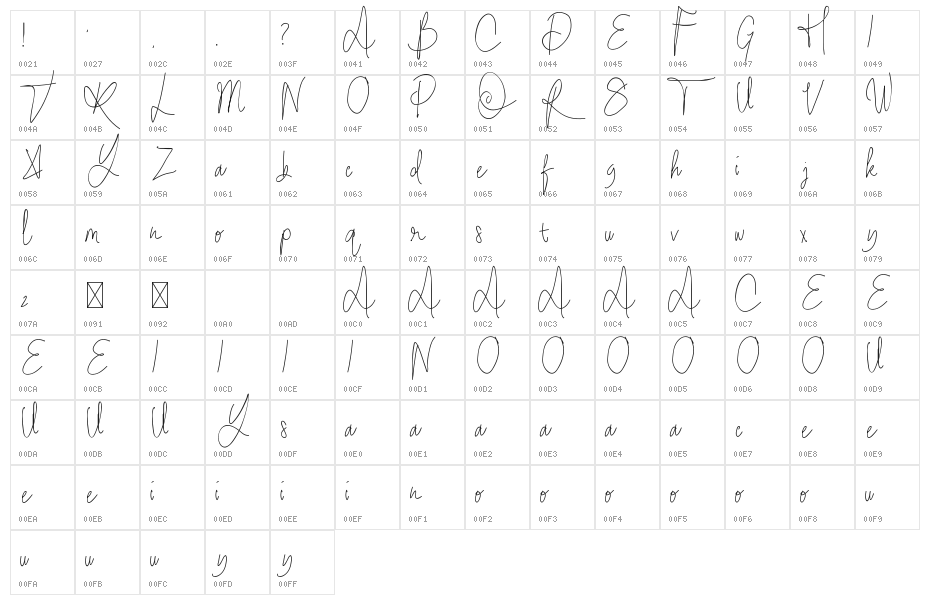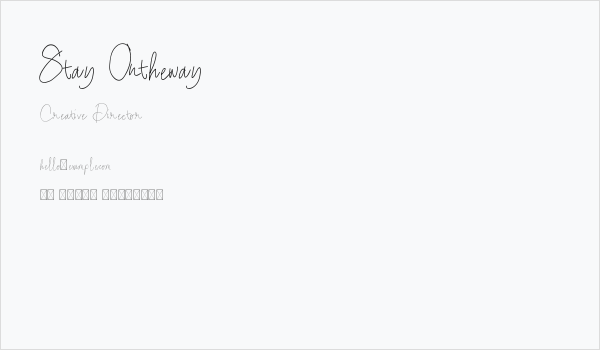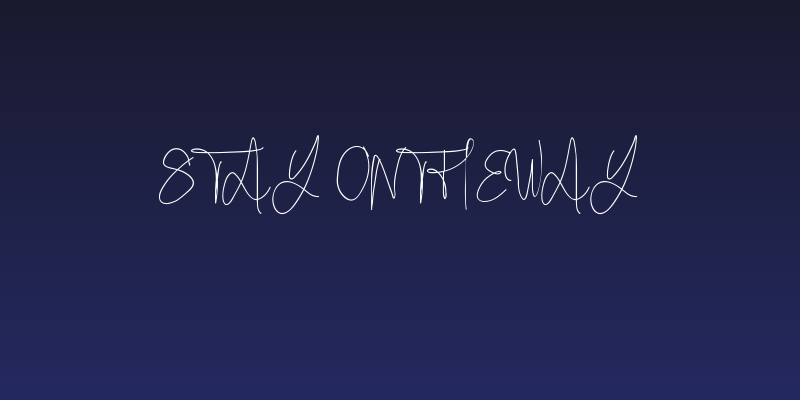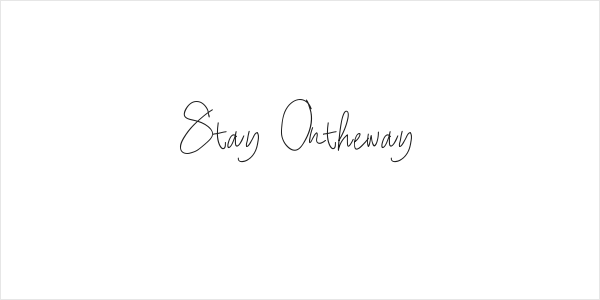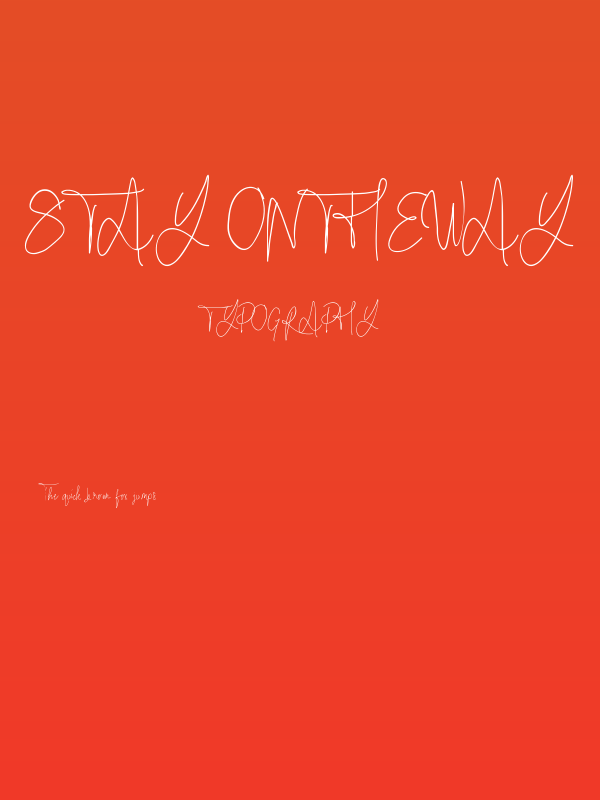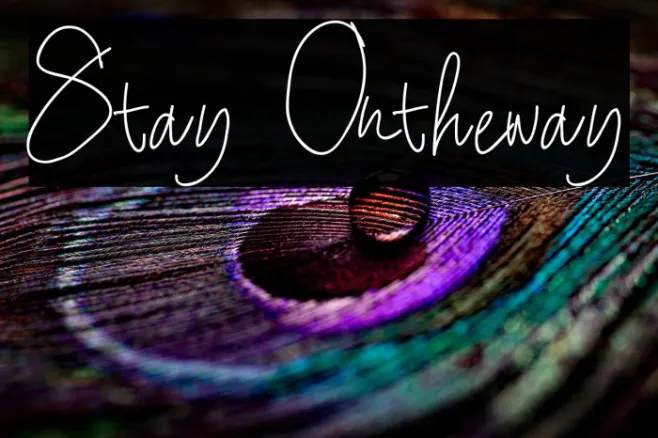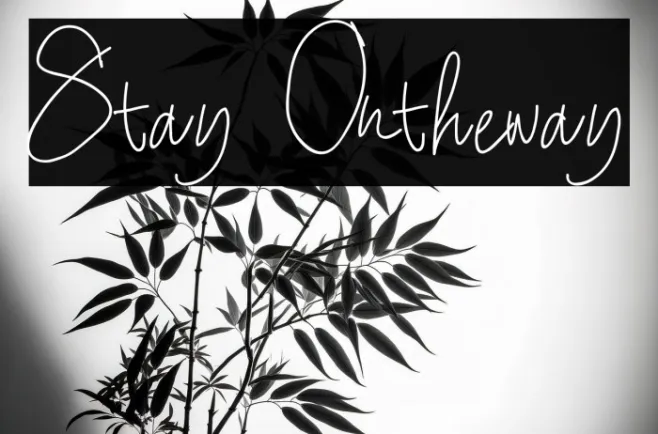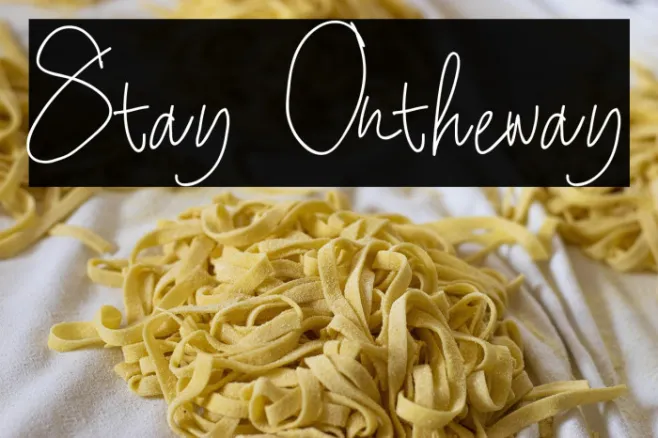
Stay Ontheway Font
Stay Ontheway Description
This font features a whimsical and artistic style, characterized by its flowing, cursive-like strokes that give it a handwritten appearance. The letters are elongated and slightly irregular, adding a playful and creative touch. The uppercase letters are bold and expressive, while the lowercase letters maintain a consistent fluidity. The font's unique style is further enhanced by its decorative loops and swirls, particularly evident in the capital letters. This font exudes a sense of elegance and creativity, making it suitable for projects that require a personal and artistic flair.
| Proposed Projects | Ideal for wedding invitations, artistic branding, greeting cards, and creative posters. |